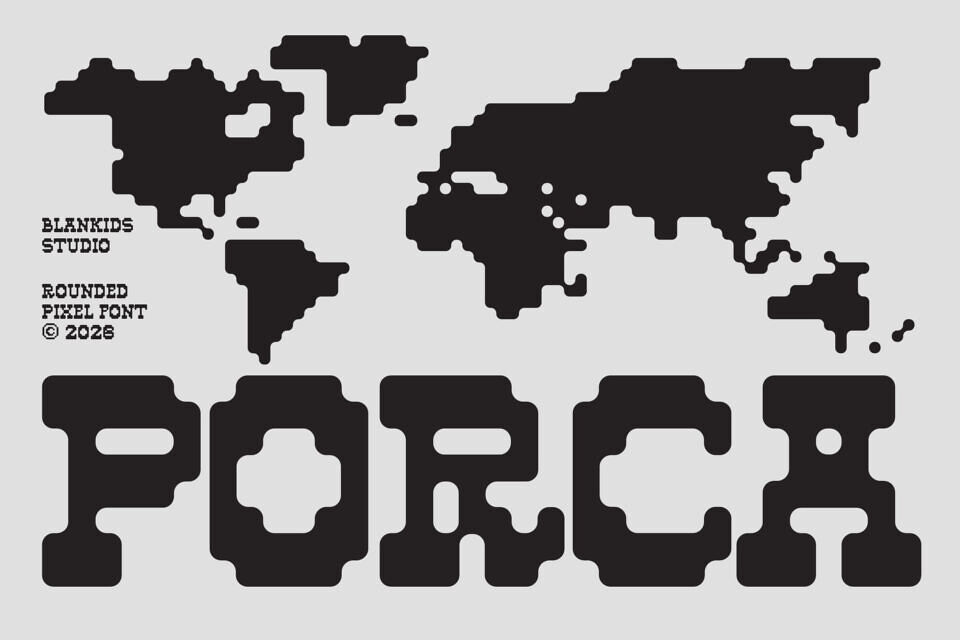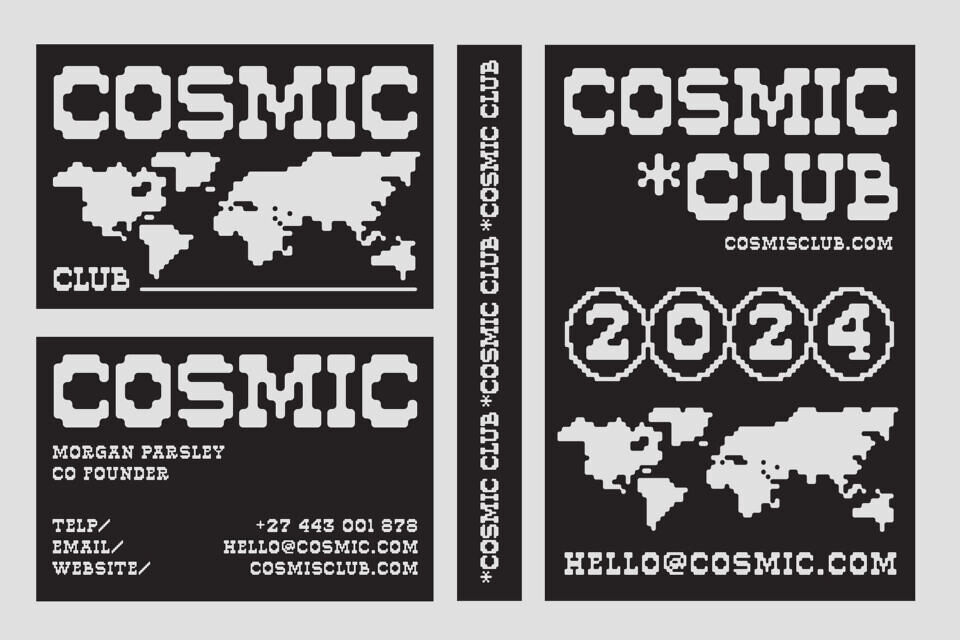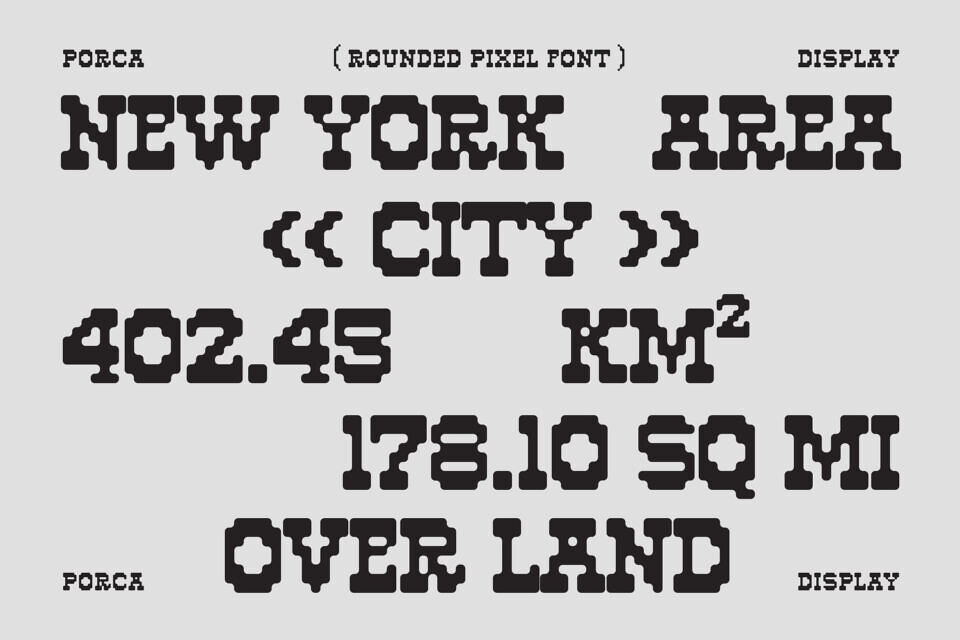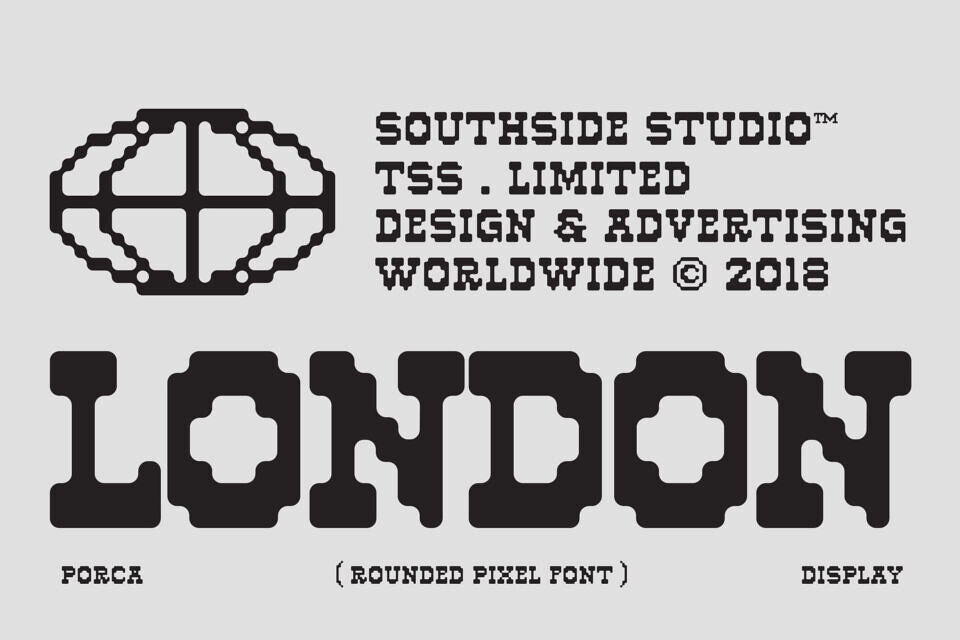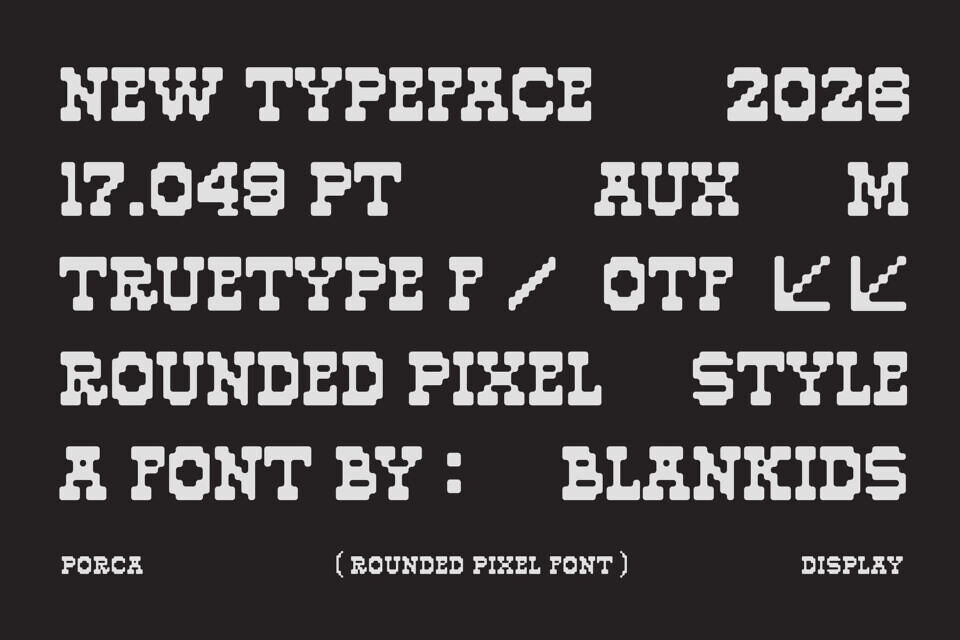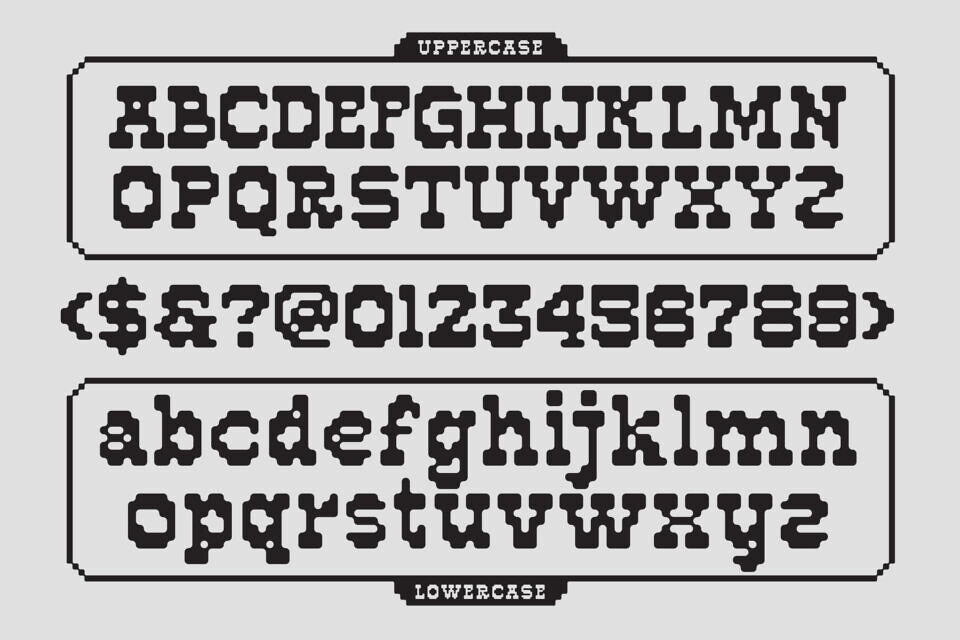
Porca is a bold rounded pixel font inspired by retro arcade games, vintage computer graphics, and chunky bitmap typography from the 80s and 90s. Designed with a soft rounded edge and strong blocky shapes, Porca delivers a playful yet powerful look perfect for posters, gaming projects, logos, streetwear, merchandise, branding, packaging, and nostalgic digital designs.
This font combines classic pixel aesthetics with a modern display style, making it highly versatile for creative projects that need a unique retro-futuristic vibe. Complete with uppercase, lowercase, numbers, and symbols, Porca is ideal for designers looking for a standout pixel typeface with character and personality.